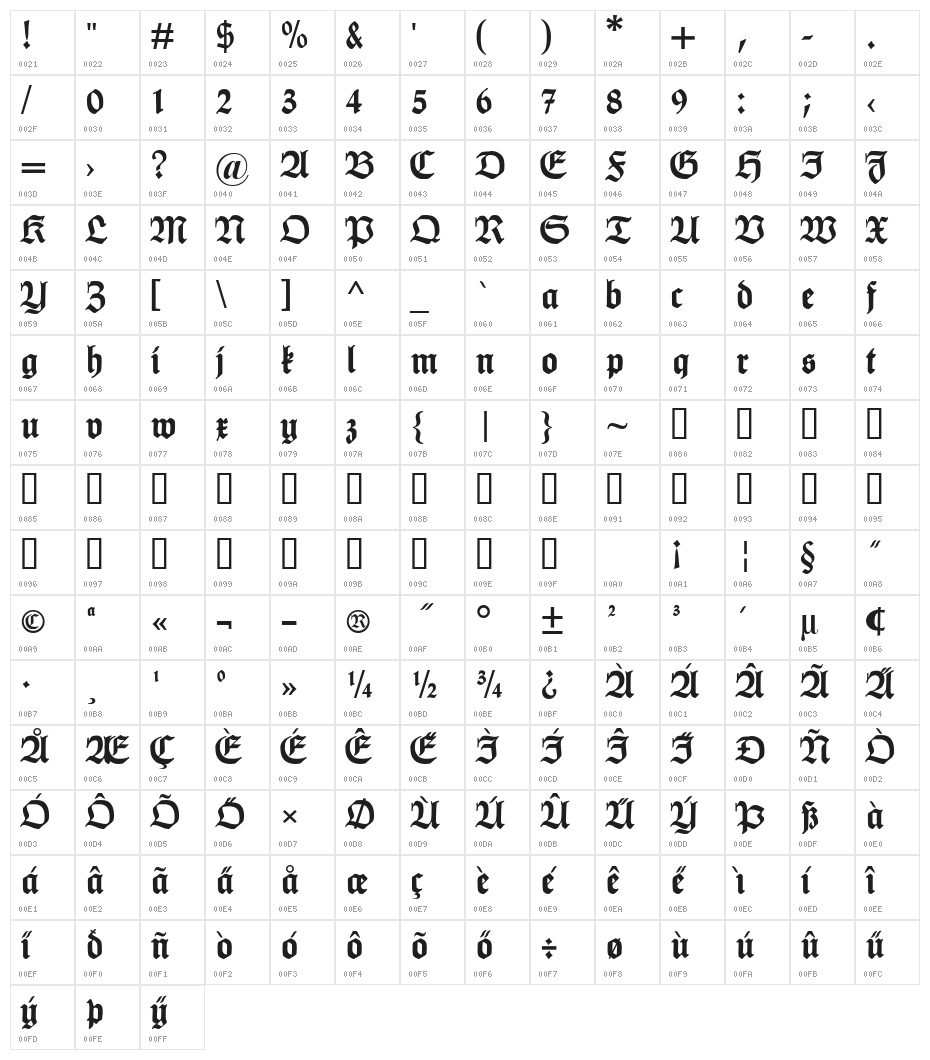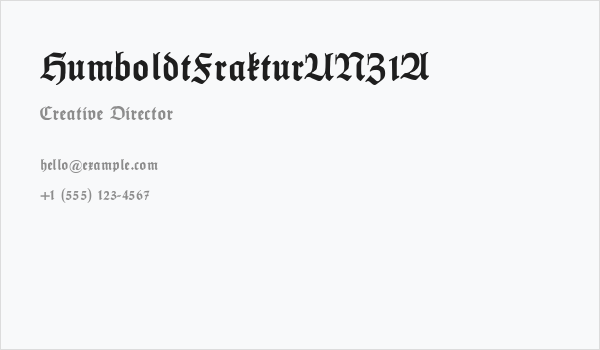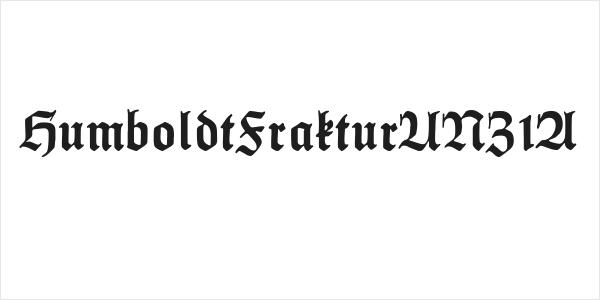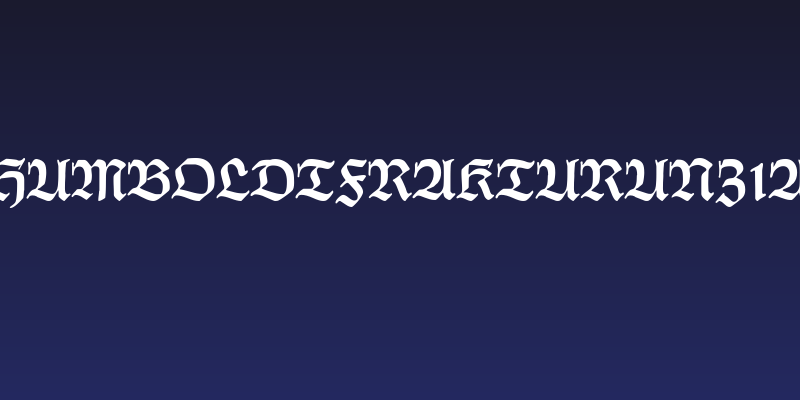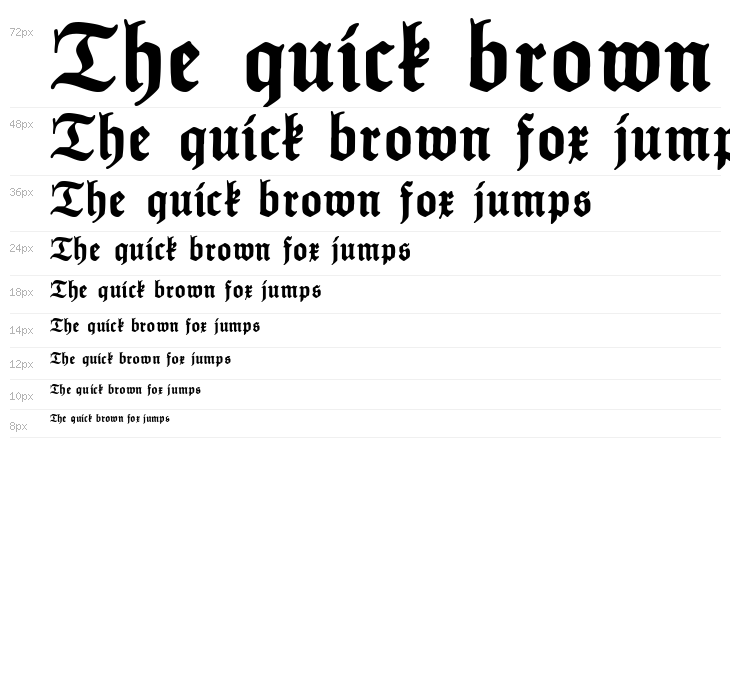
HumboldtFrakturUNZ1A Font
HumboldtFrakturUNZ1A Description
This font is a classic representation of the Blackletter style, characterized by its intricate and ornate letterforms. The uppercase letters exhibit a strong, angular structure with sharp serifs and decorative flourishes, while the lowercase letters maintain a consistent boldness with a slightly more rounded appearance. The numbers are equally bold and follow the same stylistic cues as the letters, ensuring a cohesive look across all characters. The special characters are designed to match the overall aesthetic, featuring the same bold strokes and decorative elements. This font is ideal for projects that require a historical or traditional touch, such as certificates, formal invitations, or branding for vintage-themed products.
| Proposed Projects | Ideal for certificates, formal invitations, vintage branding, and historical themed designs. |